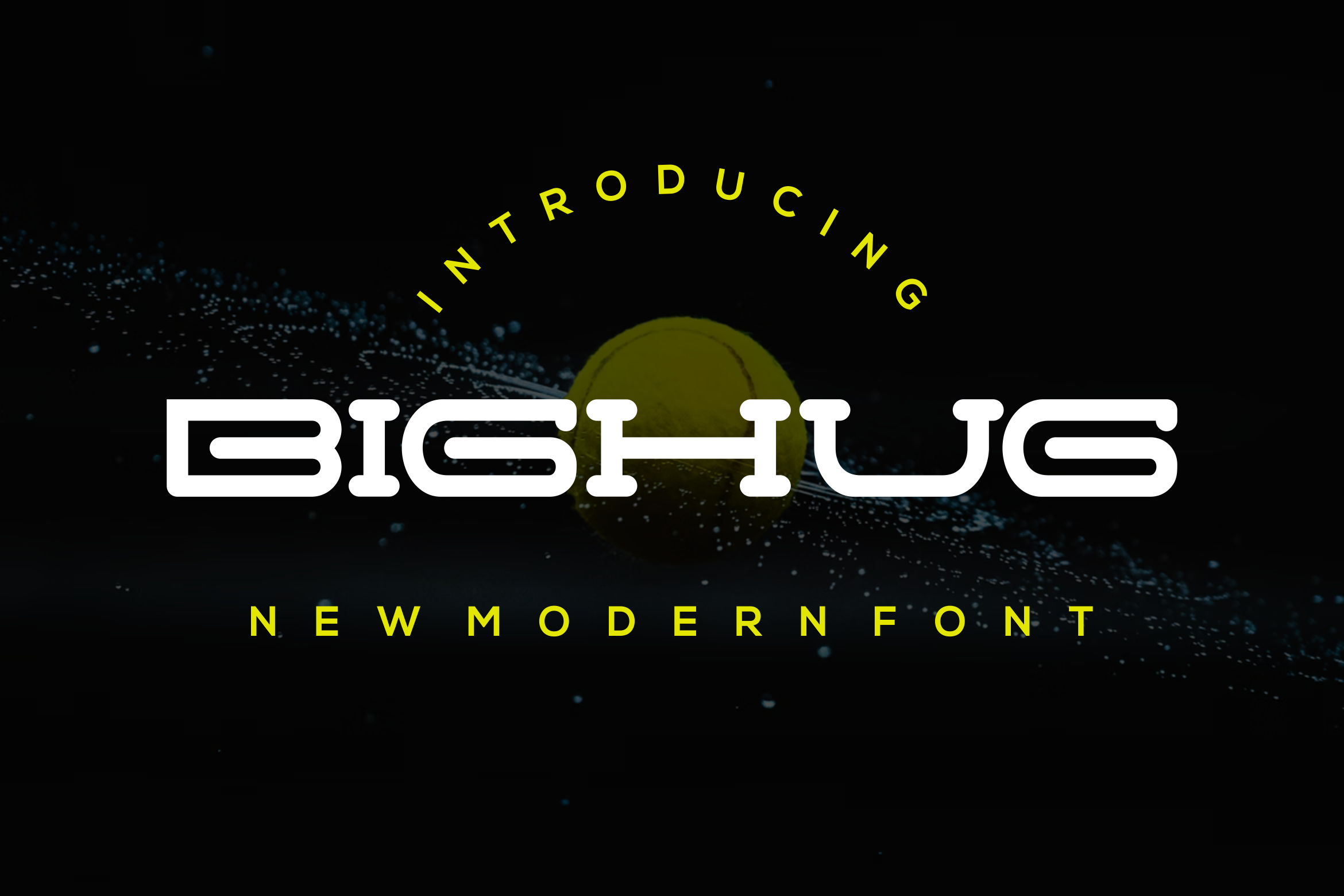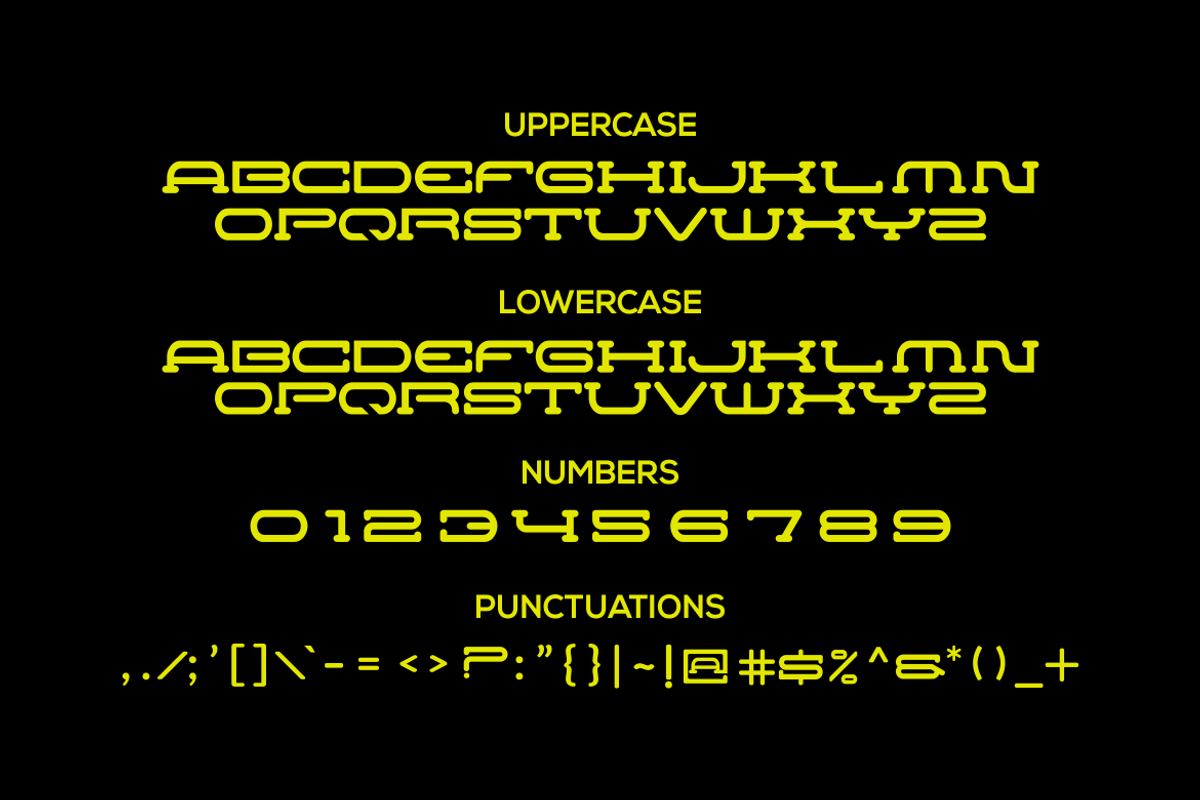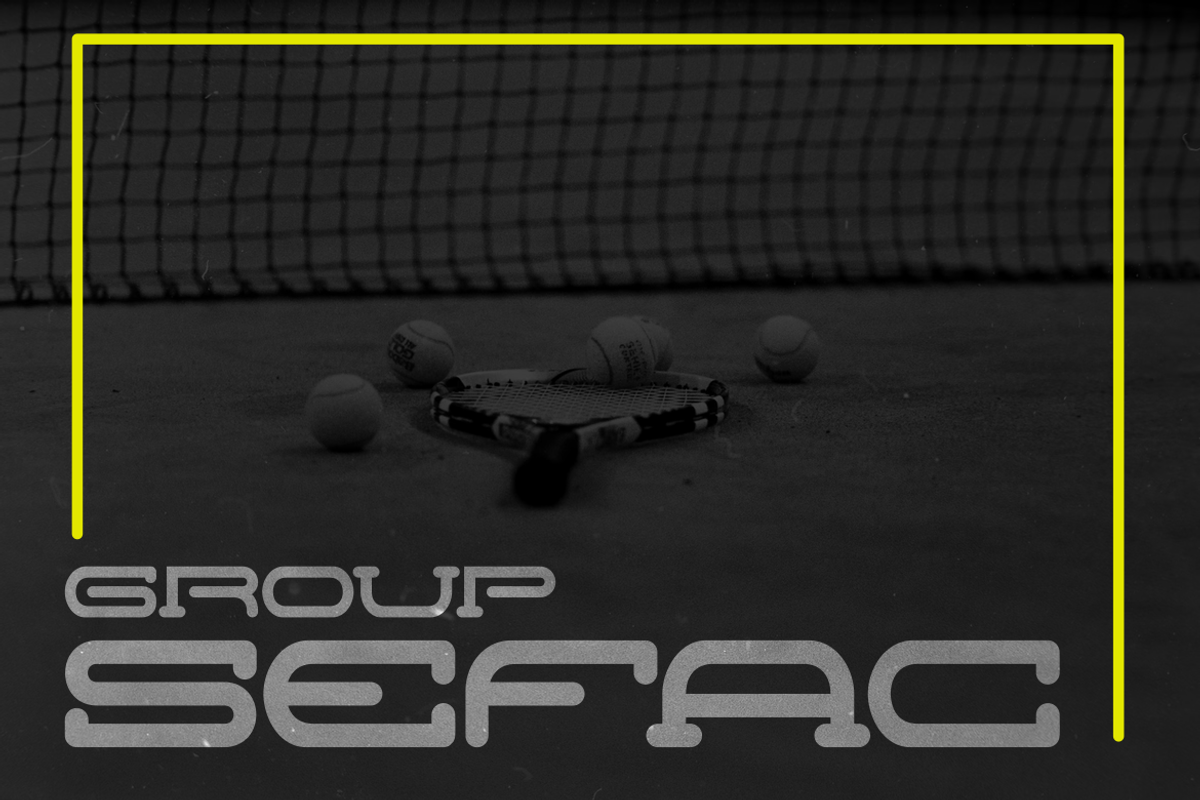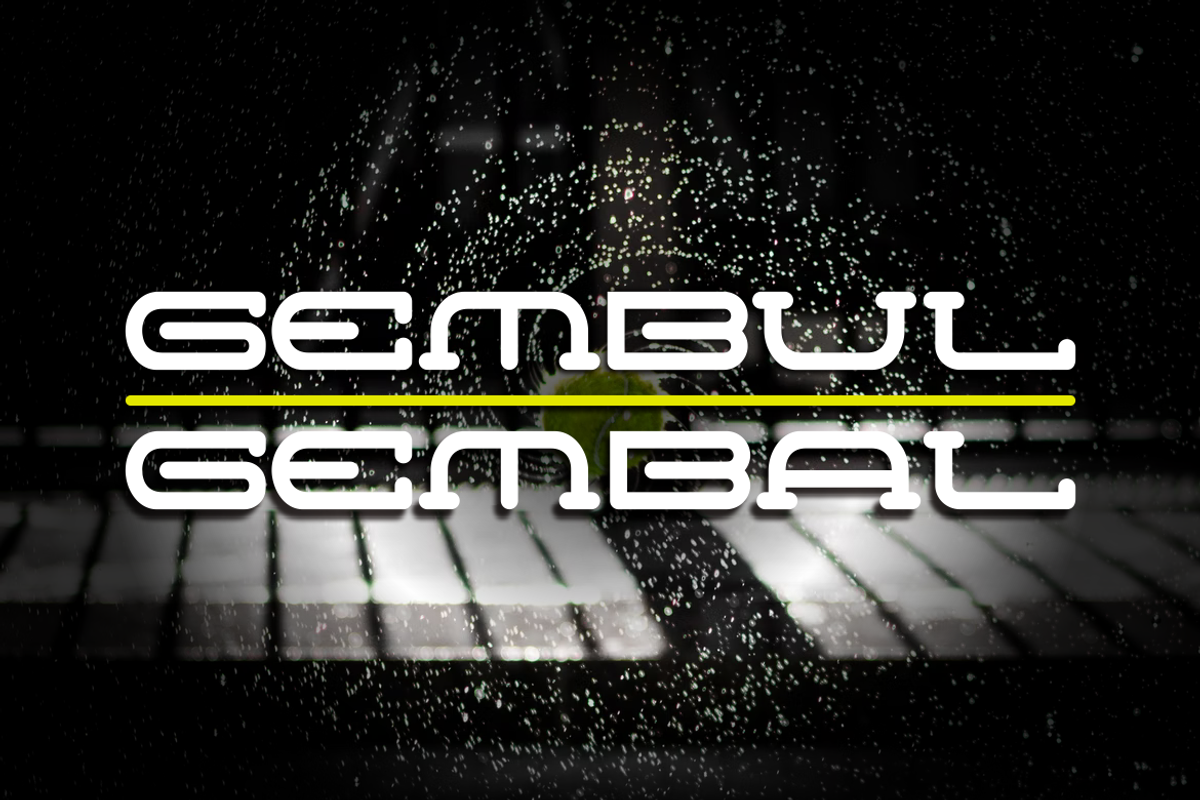
Bighug Font
Introducing our new product Bighug Font - Modern Font
Bighug Font - Modern Font is a bold and authentic display font. The font is suitable for any branding project like logo, esport, and many more. outstanding in a wide range of contexts.